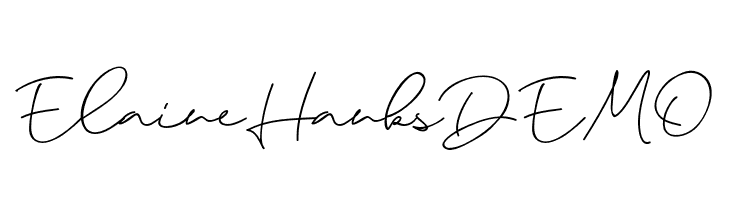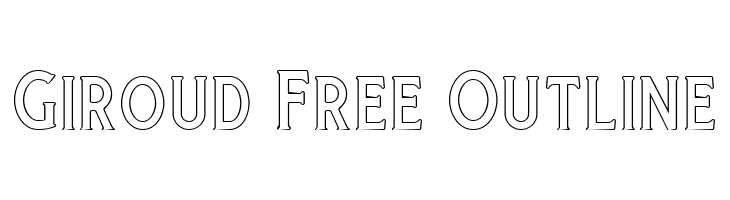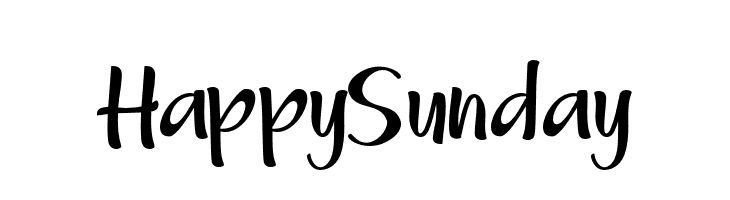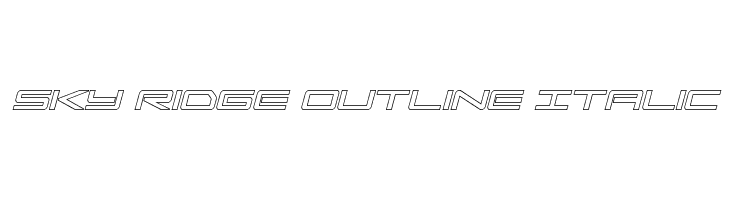
A modern, geometric outline font with clean and structured letterforms.
A bold, expressive script font with elegant, flowing letterforms.
A playful, thin, handwritten font with a slight italic slant.
A bold, high-contrast blackletter font with a medieval aesthetic.
An elegant and decorative script font with flowing, cursive letterforms.
A playful, handwritten font with a whimsical and friendly style.
An outline font with a bone-like, skeletal design, perfect for spooky themes.
A modern, elegant font with high contrast and artistic flair.
A playful and whimsical font with rounded, irregular letterforms.
A bold, playful font with a hand-drawn, irregular style.